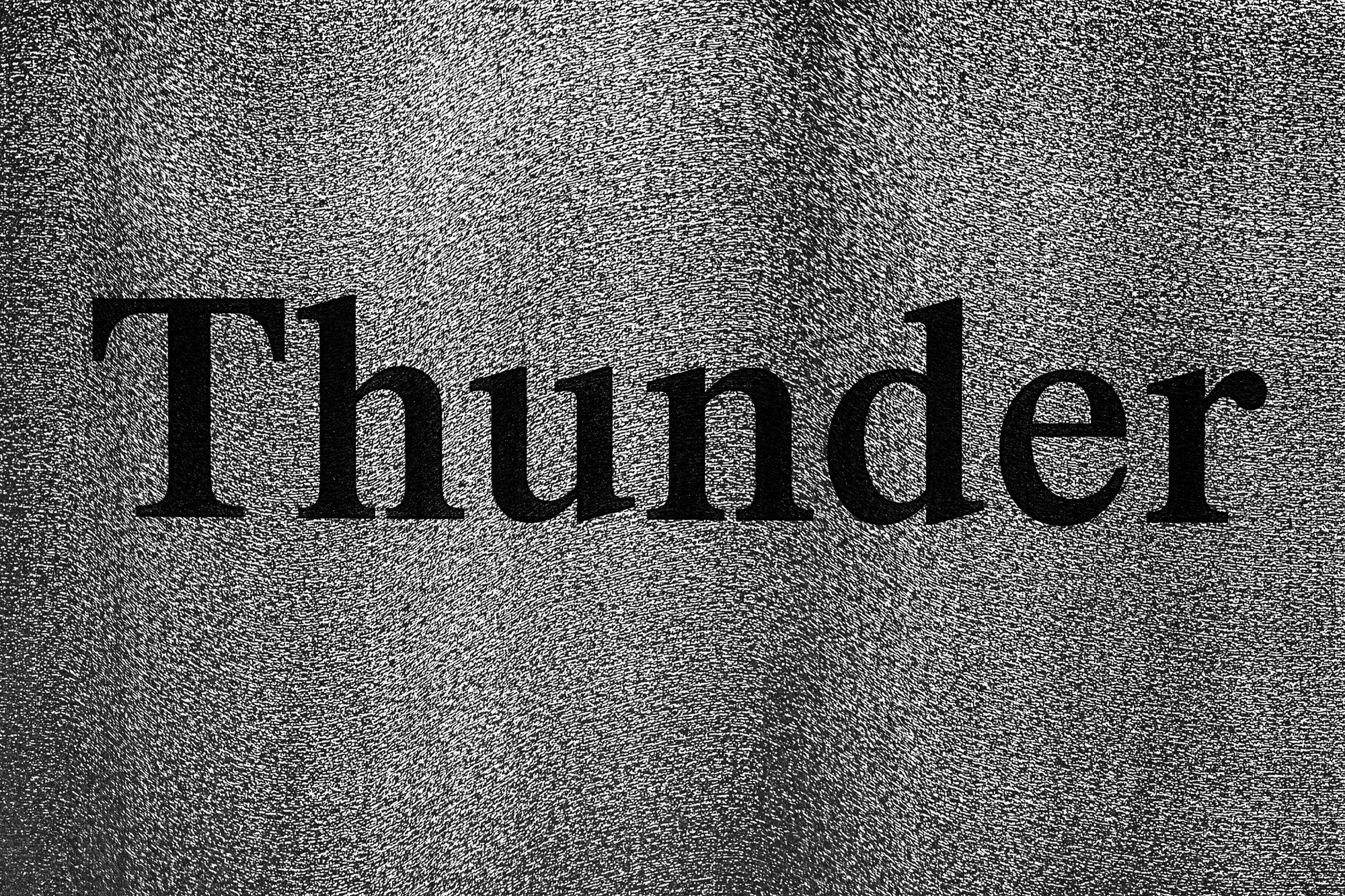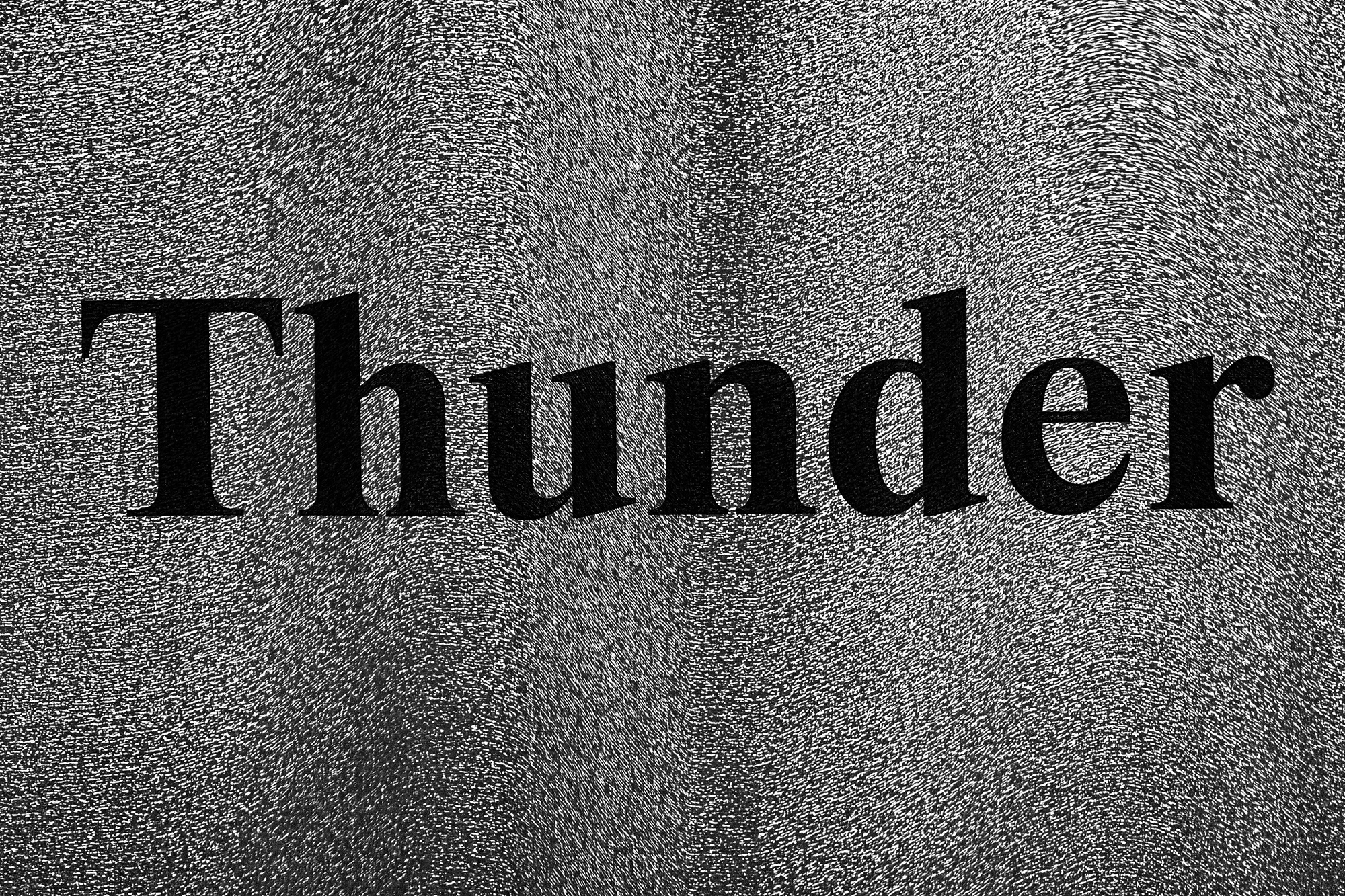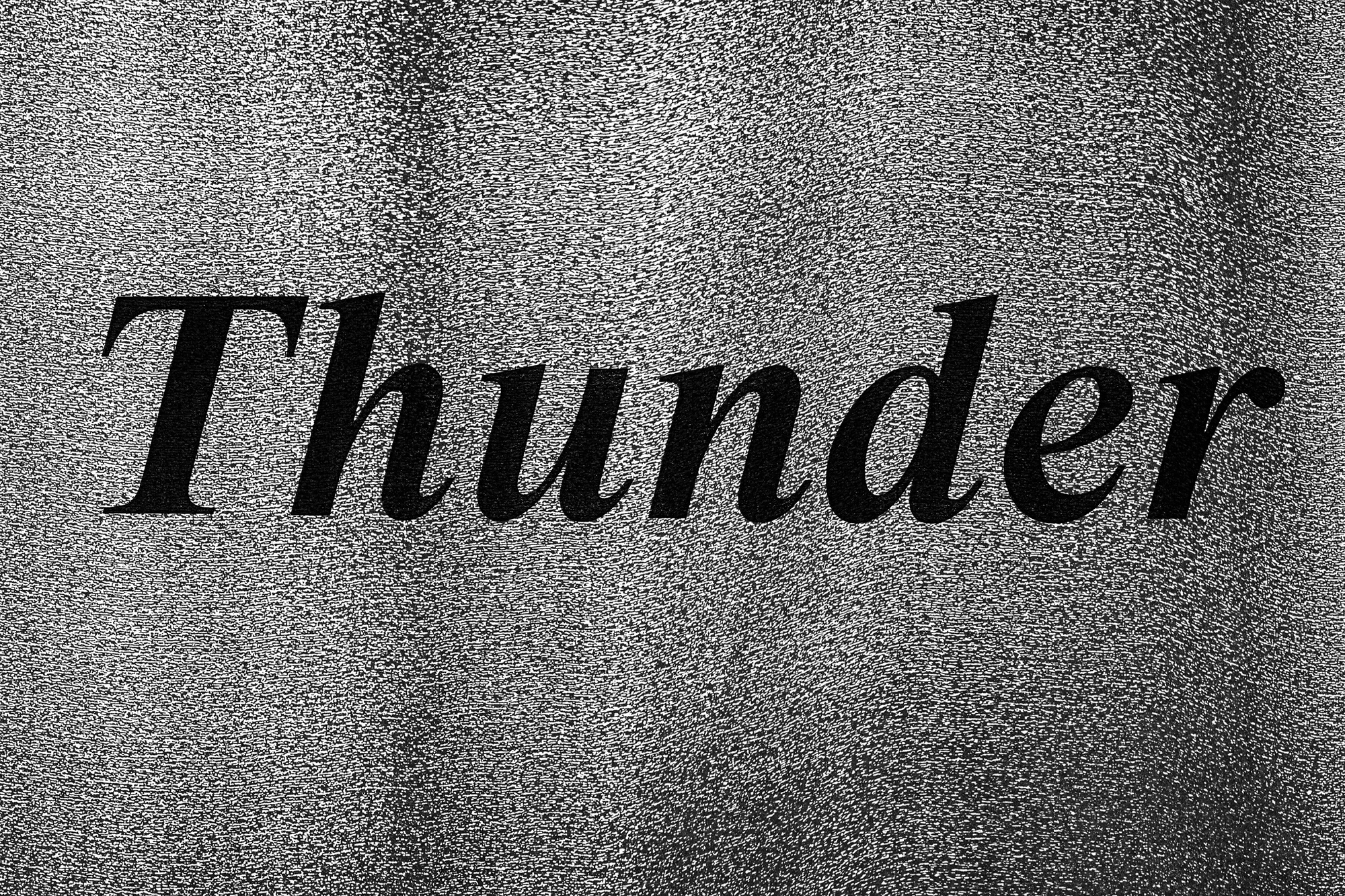
About Thunder
Thunder is a contemporary typeface that reinterprets the legacy of Times New Roman with renewed consistency. Its name draws from the history of The Times of London, nicknamed The Thunderer as early as the 1830s for the uncompromising tone of its editorials. While Stanley Morison’s original, designed in 1932, was conceived for the technical and spatial constraints of The Times’s printing, Thunder rebuilds this foundation, shaped for today’s editorial and digital environments. It retains the familiarity of its model while adopting subtle shifts in rhythm, proportion, and contrast, giving it a stronger presence on the page and greater adaptability across contexts of use.
The collection is organized into three optical ranges — Standard for text, Display for headlines, and Caption for small sizes — each accompanied by dedicated italics. In addition to these core styles, Thunder offers a wide set of stylistic alternates. The C, G, S, set provides oldstyle forms, while the G, S, set introduces slashed variants; curved-stem P and R and straight-stem B, D, P, and R allow a play between suppleness and austerity; mirrored O and g create striking graphic accents; and an oldstyle W offers a distinctive historical echo.
These variations allow Thunder to adapt with precision, from classic editorial restraint to a sharper contemporary expression. With over 600 glyphs, broad language coverage, and full support as a variable font, Thunder extends its historical reference while asserting a sharper, modern voice.